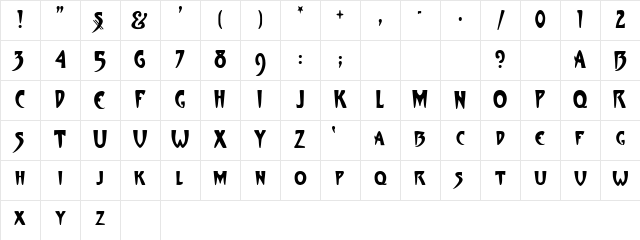
Gehenna Regular Free Font
Gehenna Regular
Design Context for Gehenna
Gehenna is a composed and adaptable typeface that performs quietly and consistently across a wide range of design contexts.